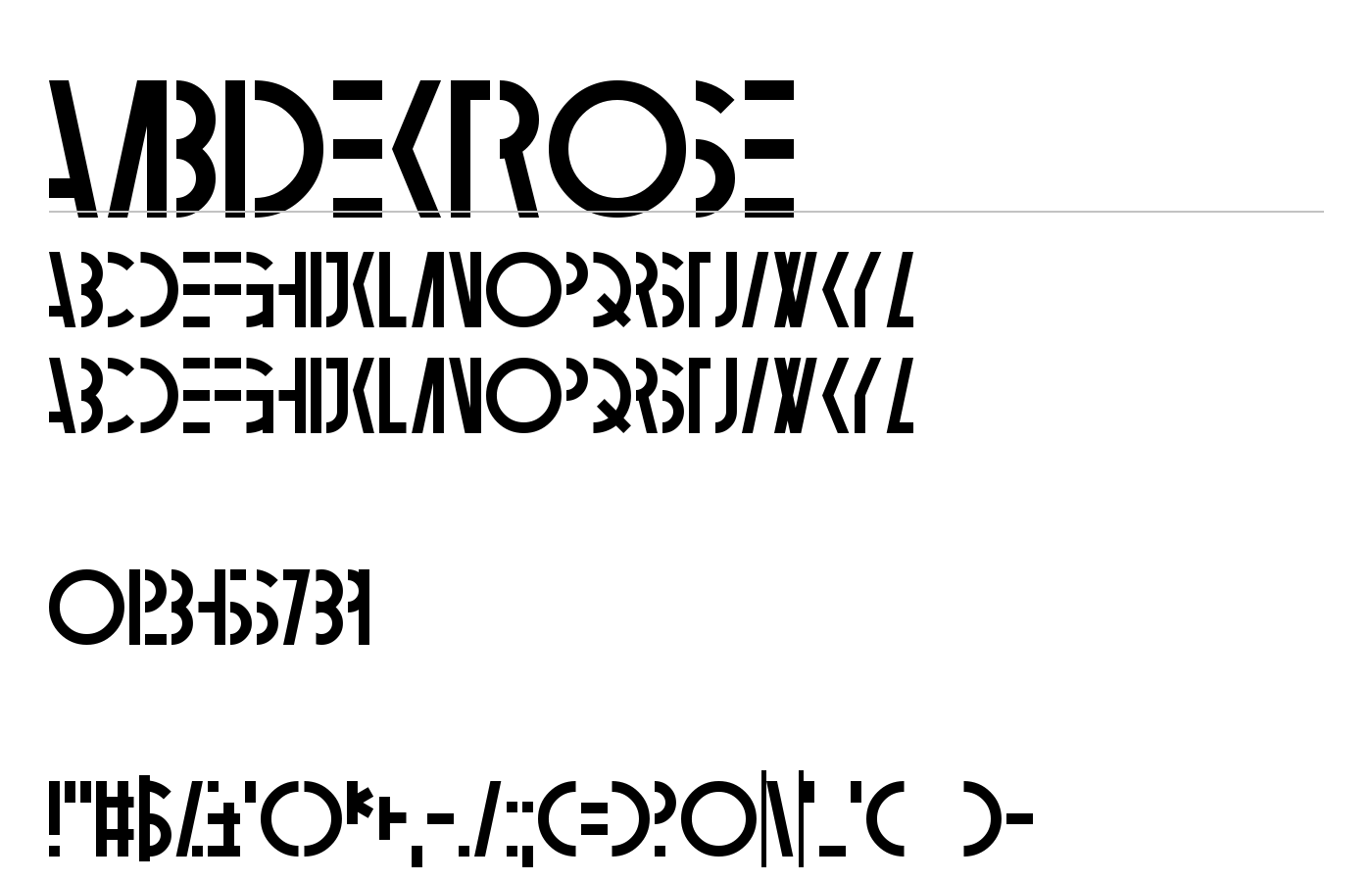
Ambidextrose is a bold, modern sans serif font with a striking geometric design and high contrast between thick and thin strokes. Its angular shapes and sharp edges give it a futuristic, almost stencil-like feel, making it ideal for eye-catching headlines, branding, and posters. This font suits creative projects that want to stand out with a strong, avant-garde personality.
Ambidextrose Font
About Ambidextrose Font
| Font family | Ambidextrose Font |
| Designer | AM |